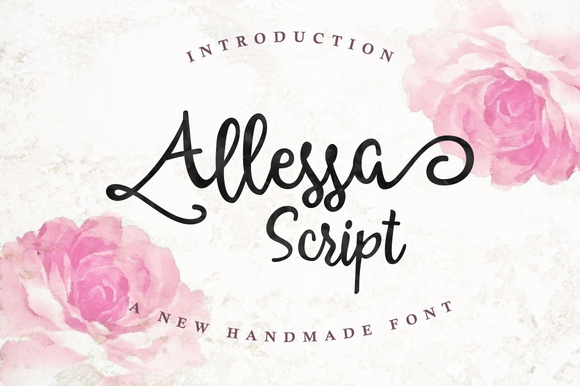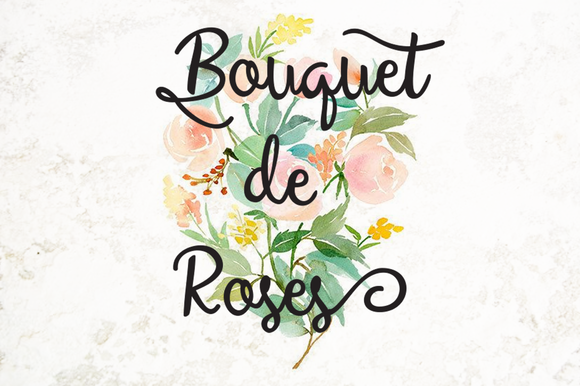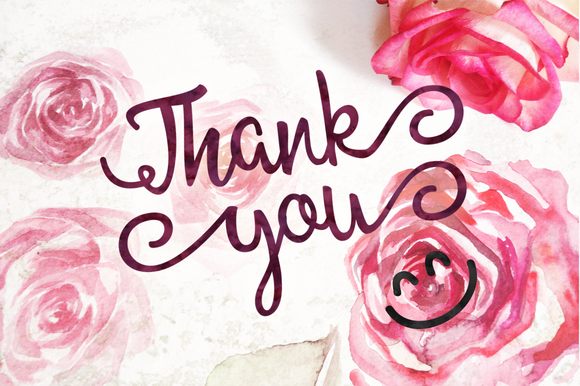
Introducing Allessa Script Font: A Beautiful Handmade Script with a Natural Look
Are you a designer or crafter looking for a unique and elegant font to add a personal touch to your projects? Look no further than Allessa Script Font, a stunning handmade script with a natural look that’s sure to captivate your audience. In this article, we’ll dive into the world of Allessa Script Font, exploring its features, benefits, and uses, as well as provide tips and inspiration for incorporating it into your creative endeavors.
What is Allessa Script Font?
Allessa Script Font is a beautiful, handcrafted script font designed to evoke a sense of elegance and sophistication. With its natural, flowing lines and subtle imperfections, this font exudes a warm, organic feel that’s perfect for a wide range of creative projects, from wedding invitations and branding materials to packaging and digital media.
Key Features of Allessa Script Font
- Handmade with love: Allessa Script Font is carefully crafted by hand, giving it a unique, personal touch that’s hard to find in digital fonts.
- Natural look: The font’s subtle imperfections and organic lines create a natural, effortless look that’s perfect for designs that require a touch of whimsy.
- Elegant and sophisticated: Allessa Script Font is ideal for high-end branding, wedding invitations, and other applications where elegance and refinement are paramount.
- Highly versatile: This font can be used for a wide range of creative projects, from digital media to print materials.
Benefits of Using Allessa Script Font
So why choose Allessa Script Font for your next project? Here are just a few benefits of using this beautiful font:
- Adds a personal touch: With its handmade, natural look, Allessa Script Font adds a unique, personal touch to your designs that sets them apart from the crowd.
- Evokes emotion: The font’s elegant, sophisticated lines evoke feelings of luxury, refinement, and whimsy, making it perfect for designs that require an emotional connection.
- Enhances creativity: Allessa Script Font’s versatility and unique character make it an excellent choice for designers and crafters looking to push the boundaries of their creativity.
Using Allessa Script Font in Your Designs
So how can you incorporate Allessa Script Font into your creative projects? Here are a few ideas to get you started:
- Wedding invitations and stationery: Allessa Script Font is perfect for wedding invitations, save-the-dates, and other stationery that requires an elegant, sophisticated touch.
- Branding and packaging: Use this font to add a touch of luxury and refinement to your branding materials, packaging, and product labels.
- Digital media: Allessa Script Font is ideal for digital media, including social media graphics, blog headers, and email newsletters.
Tips and Tricks for Working with Allessa Script Font
To get the most out of Allessa Script Font, here are a few tips and tricks to keep in mind:
- Use it sparingly: Because of its elegant, sophisticated lines, Allessa Script Font is best used sparingly to add a touch of refinement to your designs.
- Experiment with colors and textures: Don’t be afraid to experiment with different colors and textures to add depth and interest to your designs.
- Pair it with contrasting fonts: Pair Allessa Script Font with contrasting fonts to create visual interest and add depth to your designs.
| Font Name | Allessa Script Font |
| Author | QueenType |
In conclusion, Allessa Script Font is a beautiful, handmade script font with a natural look that’s perfect for designers and crafters looking to add a touch of elegance and sophistication to their creative projects. With its unique character, versatility, and emotional resonance, this font is sure to captivate your audience and set your designs apart from the crowd. So why wait? Try Allessa Script Font today and discover the power of beautiful typography!